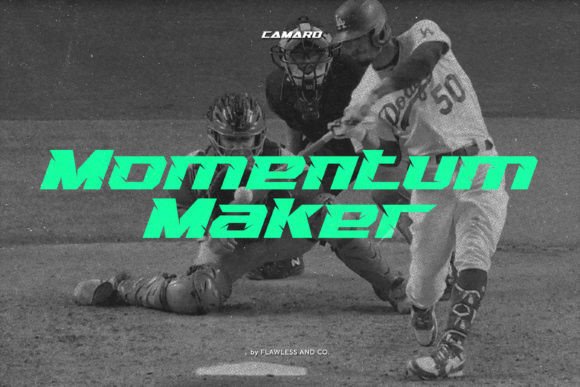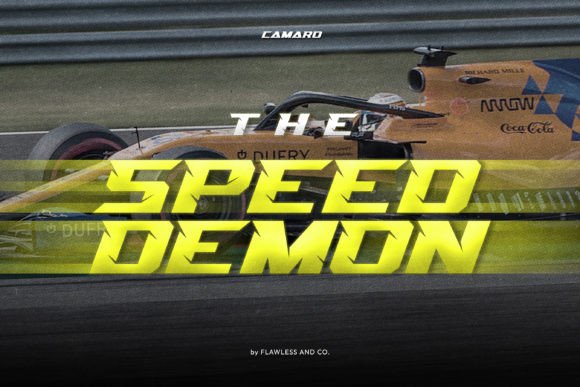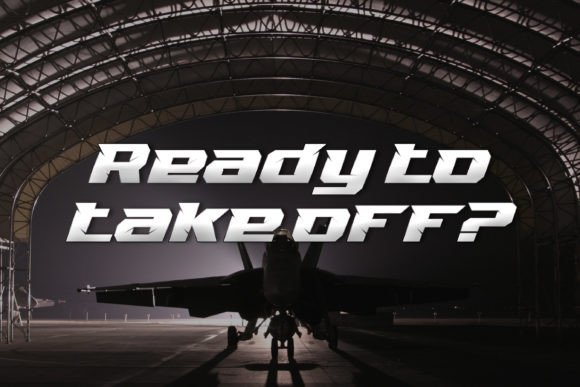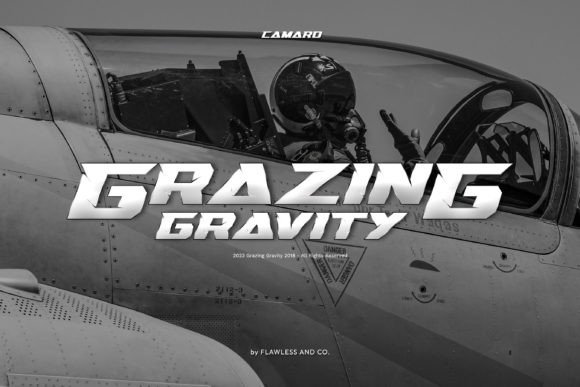
The Perfect Pit Stop for Your Design: Introducing Camaro Font
As a designer, have you ever felt like you’re stuck in neutral, searching for the right typography to give your project the boost it needs? You’re not alone. We’ve all been there, stuck in a sea of generic fonts, longing for something that truly captures the essence of speed and excitement.
Enter the Camaro Font – a high-octane display font that’s designed to put the pedal to the metal. With its sleek lines and bold strokes, Camaro Font is the perfect pit stop for designers looking to add a racing-inspired typographic element to their work. Whether you’re designing a race car logo, a racing event poster, or a sports brand, Camaro Font is the ultimate tool for creating a sense of speed and energy.
Camaro Font Key Features
- Font Family: Camaro Font is a sans-serif font family with a sporty and modern design.
- Unique Characteristics: Features a bold and edgy design, with distinctive geometric shapes and a modern twist on traditional sans-serif fonts.
Camaro Font Review
First of all, I think the Camaro font is a decent choice for automotive or rugged-themed designs ✨. It has a bold, sporty feel to it that could work well for a variety of projects. The font is also highly customizable, allowing you to adjust its thickness, contrast, and even the texture of the letters. This flexibility makes it a great option for designers who want to add some extra flair to their work.
One thing that works well about the Camaro font is its versatility ✨. It can be used for both digital and print designs, and its bold lines make it easy to read from a distance. Additionally, the font is highly legible, even when used in smaller font sizes. This is a big plus, as it means you can use the font without worrying about it getting lost in the design.
- ⚠️ Limited character set: The Camaro font has a relatively small character set, which may limit its use for certain types of projects.
- ⚠️ Not ideal for body text: While the Camaro font works well for headlines and titles, it’s not the best choice for body text. It can be a bit too bold and overpowering for extended blocks of text.
Overall, I think the Camaro font is a solid choice for designers who want a bold, sporty feel for their projects. While it has some limitations, its versatility and customization options make it a great option for a variety of designs.
Tips for Getting the Most Out of the Camaro Font
Use the Camaro font for bold and eye-catching headlines.
Combine the Camaro font with other fonts to create a unique and interesting design.
Experiment with different font sizes and colors to achieve the desired effect.
Alternatives to Camaro Font for Designers
1. Arial
Arial is a sans-serif font that is clean and easy to read. It is often used in body text and is a good alternative to Camaro Font when you want a more neutral and versatile font. Unlike Camaro Font, Arial is not as bold or aggressive, making it a better choice for more formal or corporate designs.
Montserrat is a sans-serif font that is similar to Camaro Font in terms of its modern and urban feel. However, it is more versatile and can be used for both body text and headings. Montserrat is a good choice when you want a font that is similar to Camaro Font but with a more polished and refined look.
3. Akkurat
Akkurat is a sans-serif font that is similar to Camaro Font in terms of its bold and aggressive feel. However, it is more elegant and refined, making it a good choice when you want a font that is similar to Camaro Font but with a more sophisticated look. Akkurat is a good choice for designs that require a bold and eye-catching font.